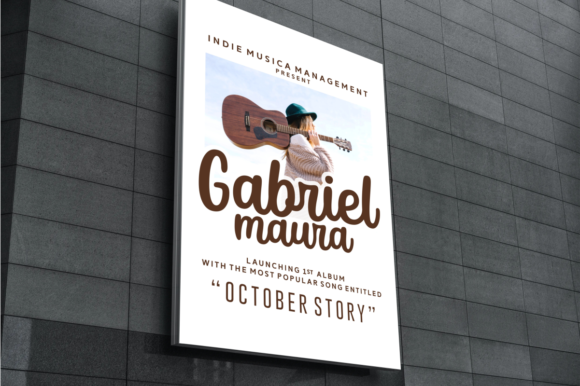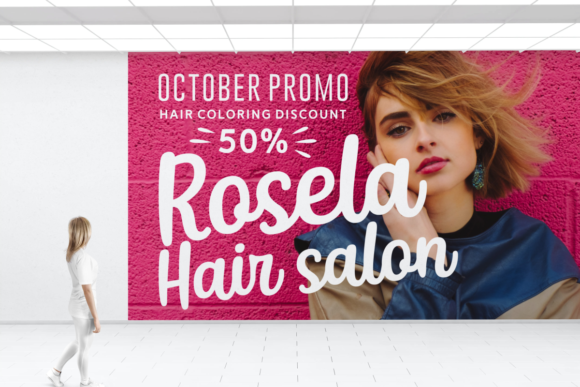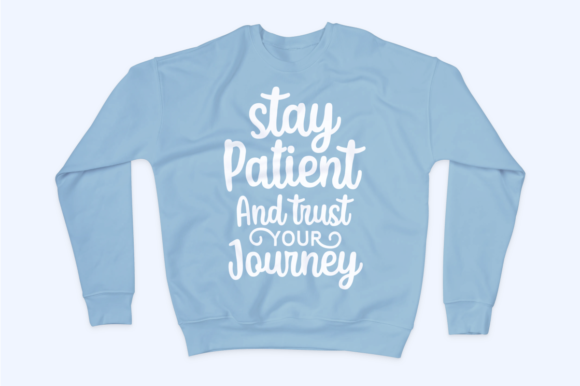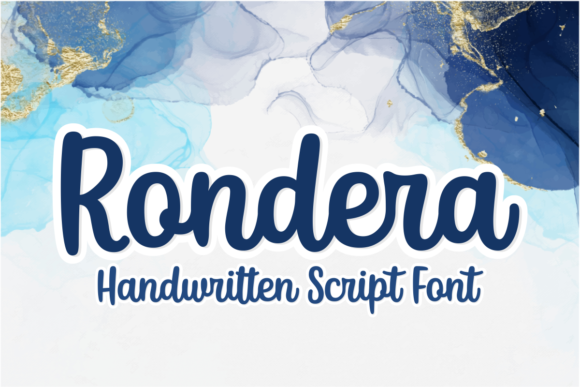
Introduction to Rondera Font
Rondera is a fun and round lettered handwritten font.
Casual and friendly, this font will be the ideal fit for each of your informal designs .
Key Features of Rondera Font
Why Choose Rondera Font?